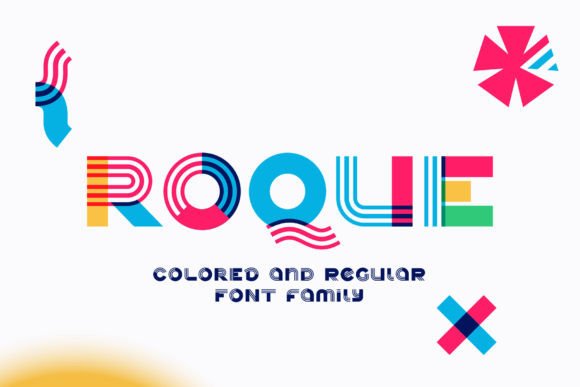
Roque: A Vibrant Font for Creative and Corporate Use
Roque is a dynamic font that stands out with its bold, colorful design. Each letter is infused with bright and vivid hues, making it an eye-catching choice for a wide range of applications. Whether you're working on a corporate identity project, designing a magazine layout, or creating a piece of clothing, Roque offers a unique visual appeal that can elevate your work.
Understanding Roque's Visual Appeal
The standout feature of Roque is its use of color overlays on each letter. This technique gives the font a lively and energetic look that can capture attention in both digital and print formats. The colors are not just for aesthetics—they can also be used strategically to convey different messages or emotions depending on the context in which they're applied.
For example, using warm colors like red or orange might evoke feelings of excitement or urgency, while cooler tones such as blue or green could communicate calmness or trust. This versatility makes Roque a powerful tool for designers looking to create visual narratives that resonate with their target audience.
Real-World Applications of Roque
One of the most common uses for Roque is in corporate identity. Companies often seek fonts that reflect their brand personality and values. With its vibrant colors, Roque can help businesses stand out in a crowded market. It’s particularly effective for brands targeting younger audiences or those in creative industries where visual impact is key.
In magazines and posters, Roque can be used to highlight headlines or key phrases. Its bold appearance ensures that important information is easily noticed, even from a distance. This makes it ideal for event promotions, advertisements, or editorial content where quick visual recognition is essential.
Clothing design is another area where Roque shines. T-shirts, hoodies, and other apparel items featuring this font can make a strong statement. The bright colors and striking typography can turn a simple piece of clothing into a conversation starter, especially when used in streetwear or fashion-forward collections.
Scenarios Where Roque Excels
Roque is particularly useful in situations where visual impact is crucial. For instance, in advertising campaigns, it can be used to create memorable slogans or taglines that grab attention. Its vibrant look works well in both digital ads and physical billboards, ensuring that the message is clear and engaging.
Event planners can also benefit from using Roque. Whether designing flyers for a music festival or creating signage for a conference, the font’s boldness helps ensure that information is easily readable and visually appealing. This is especially important in environments where there may be a lot of visual noise, such as at a busy trade show or concert venue.
For educators or presenters, Roque can be a valuable tool in creating engaging slides or handouts. Using the font for titles or key points can help draw attention to important information, making it easier for the audience to follow along and retain the content.
Who Benefits from Using Roque?
Designers and artists are among the primary users of Roque. They can leverage its vibrant colors and bold style to create unique visuals that reflect their creative vision. Whether working on a personal project or a client’s request, the font provides a fresh and dynamic option that can set their work apart.
Businesses looking to refresh their branding can also find value in Roque. It offers a modern and energetic alternative to more traditional fonts, allowing companies to express their identity in a way that feels current and relevant. This is especially beneficial for startups or small businesses aiming to make a strong first impression.
Students and hobbyists interested in graphic design may also find Roque useful. It provides an accessible way to experiment with typography and color, helping them develop their skills while creating visually appealing projects. The font’s flexibility makes it a great choice for learning and exploration.
Considerations Before Using Roque
Before incorporating Roque into a project, it’s important to consider the context in which it will be used. While its vibrant colors are eye-catching, they may not be suitable for all types of content. For example, in formal or professional settings, a more subdued font might be preferred to maintain a sense of seriousness and credibility.
Another factor to consider is readability. Although Roque is designed to be visually striking, it’s essential to ensure that the text remains legible, especially in smaller sizes or when used in complex layouts. Testing the font in different scenarios can help determine whether it meets the needs of the project.
Despite these limitations, Roque remains a versatile and impactful choice for those looking to make a strong visual statement. By understanding its strengths and considering its suitability for different contexts, users can effectively harness its potential to enhance their work.